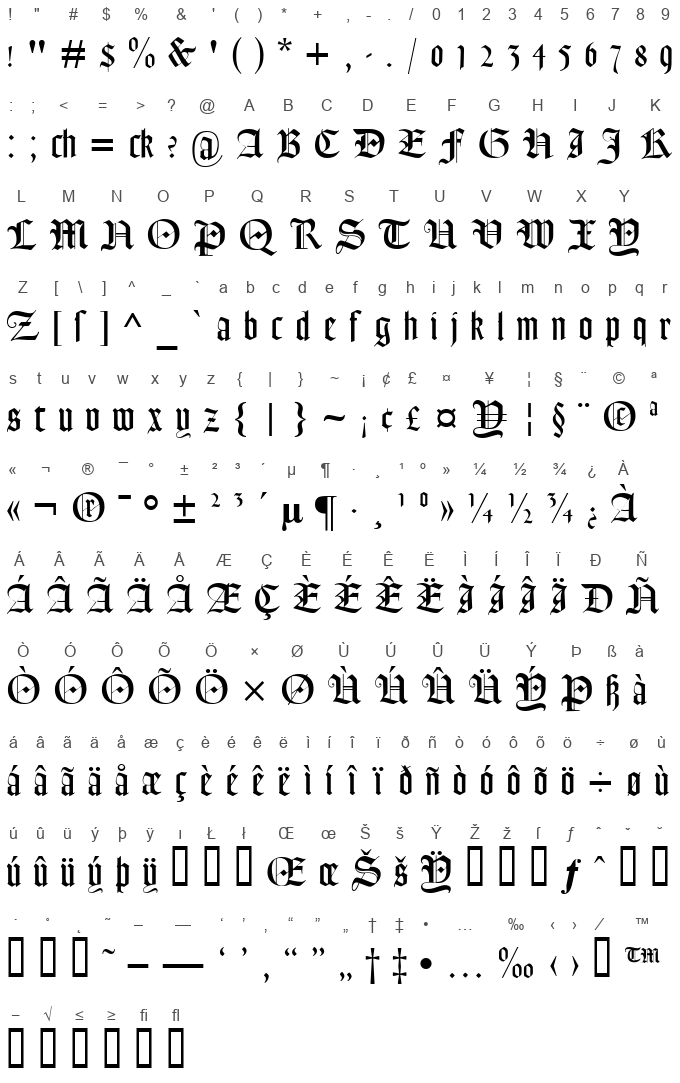
The Lohengrin font is a compelling display font that captures the essence of historical artistry and craftsmanship within its letterforms. Created by Dieter Steffmann, a renowned German typographer and graphic designer known for his prolific work in reviving classic typefaces and producing original designs, Lohengrin stands out as a testament to his dedication and skill. This font takes its name from the German opera "Lohengrin" by Richard Wagner, suggesting a connection to themes of romance, mystery, and the heroic—qualities that are subtly intertwined in the font's design.
Lohengrin showcases an intriguing blend of gothic and Art Nouveau influences, featuring ornate details and distinctive character shapes. The letters are characterized by dramatic contrasts between thick and thin strokes, a hallmark of Steffmann's attention to detail and historical accuracy. The font's uppercase letters are particularly striking, with their elaborate embellishments and stylized serifs. These features imbue the text with a sense of grandeur and old-world charm, making it particularly suitable for projects requiring a touch of elegance and historical resonance.
While the font exudes an antique aesthetic, its legibility is not sacrificed. The careful crafting of each letter allows for both decorative and functional applications, from book covers and wedding invitations to branding and digital interfaces. Lohengrin’s versatility extends to its mood, capable of evoking an atmosphere of medieval fantasy, royal decrees, or sophisticated modernity, depending on its contextual use. In essence, the Lohengrin font is a bridge between the past and the present, offering designers a tool to create work that speaks not only to the eyes but also to the imagination and emotions. Through Dieter Steffmann's meticulous work, Lohengrin becomes more than just a font; it is a piece of art that enriches the visual and emotional depth of any project it graces.
Lohengrin